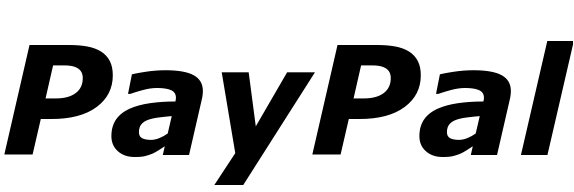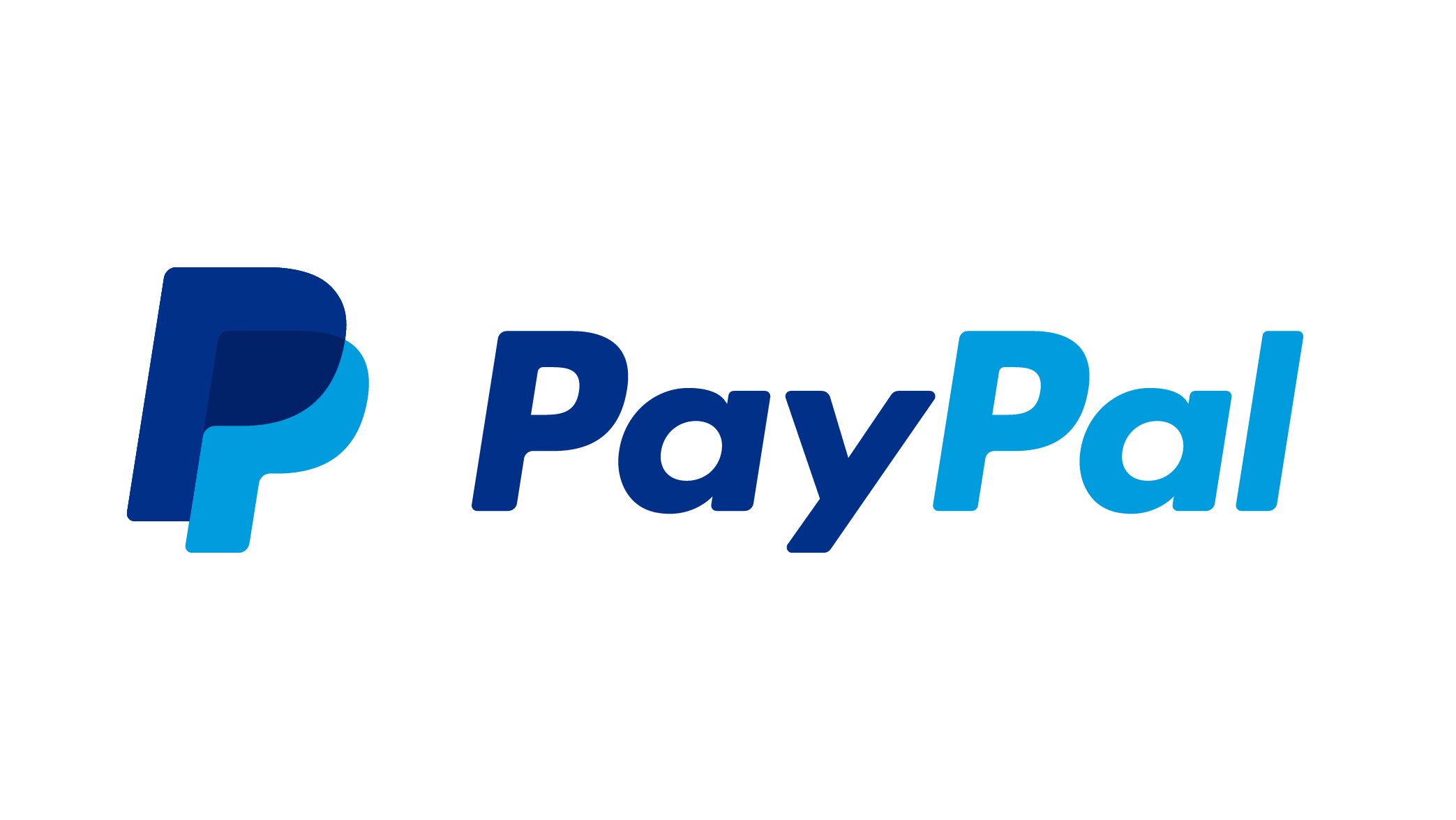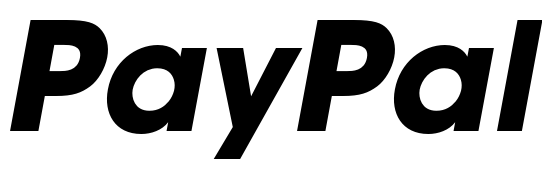
Paypal Font
Fonts in UsePaypal is an online payment system that allows individuals and businesses to transfer funds electronically. It is a secure and convenient way to make and receive payments without the need for traditional banking methods.
In 2014, PayPal updated its logo with a new wordmark featuring a single story "a" using the Avant Garde Gothic Bold Oblique font. The new logo has remained unchanged since 2014.
Previously PayPal's logo uses a font similar to Verdana Bold Italic by Matthew Carter. Verdana is a commercial typeface included in many Microsoft products.